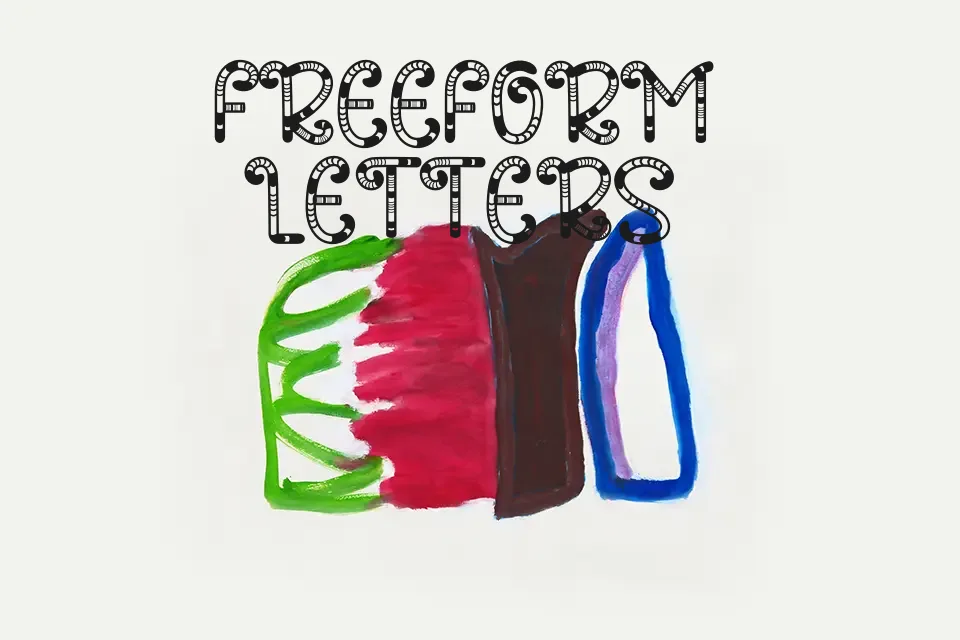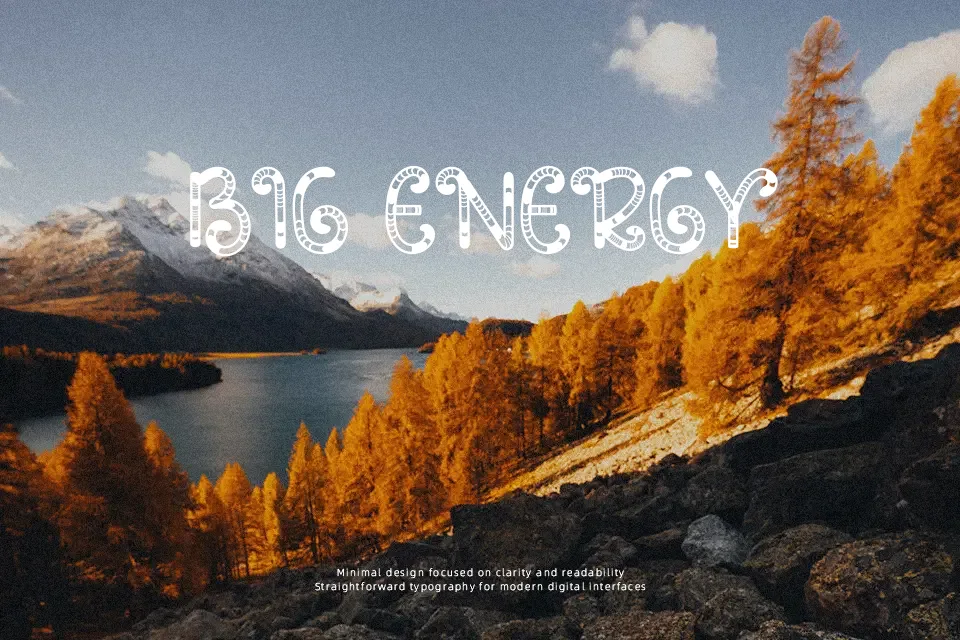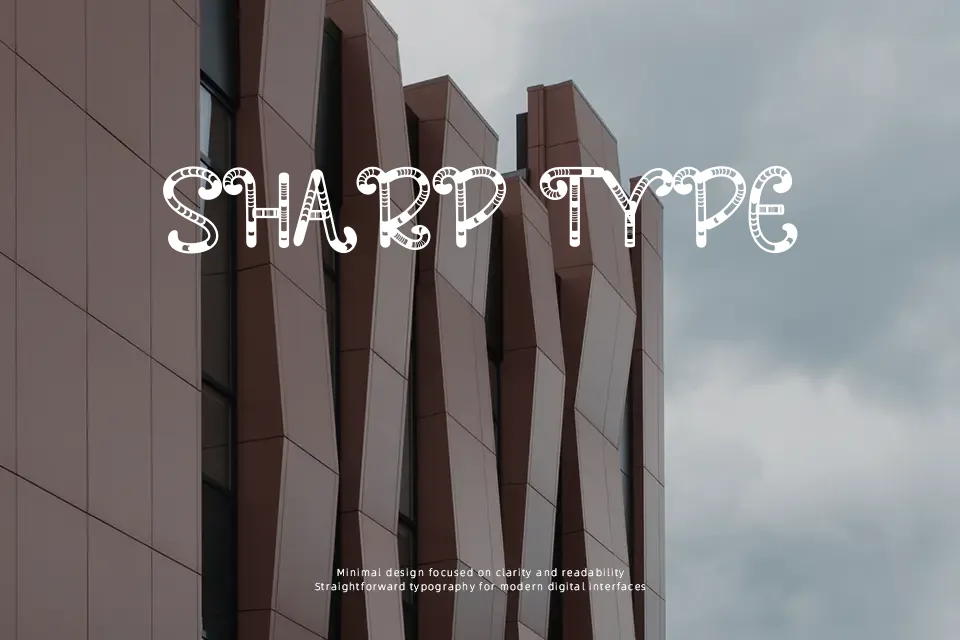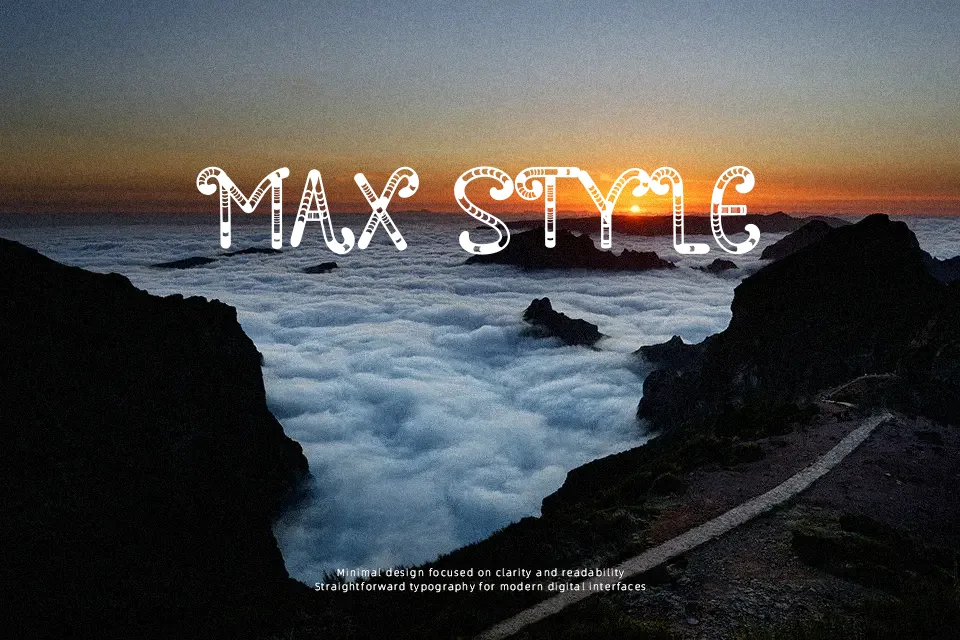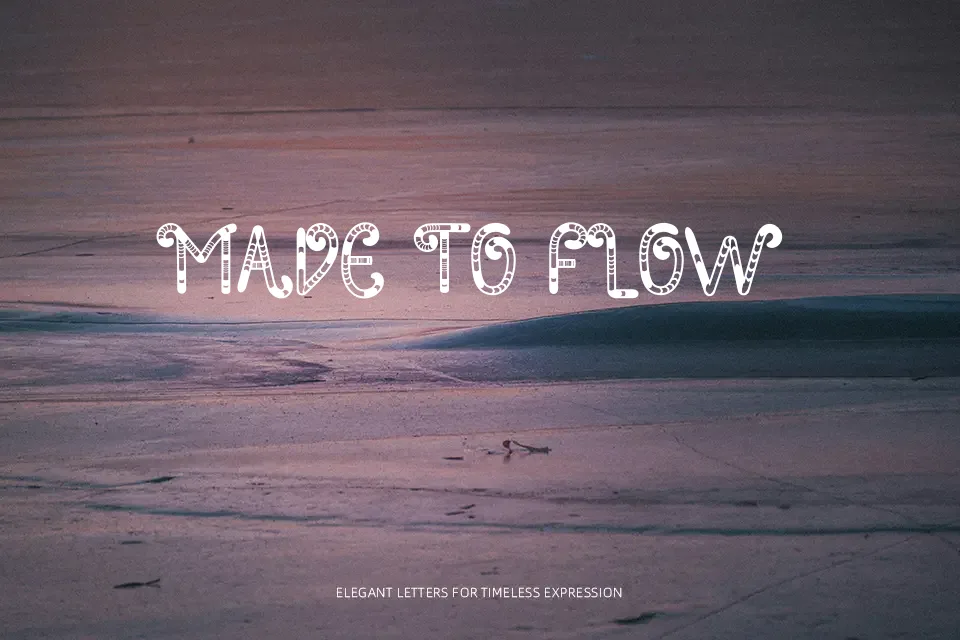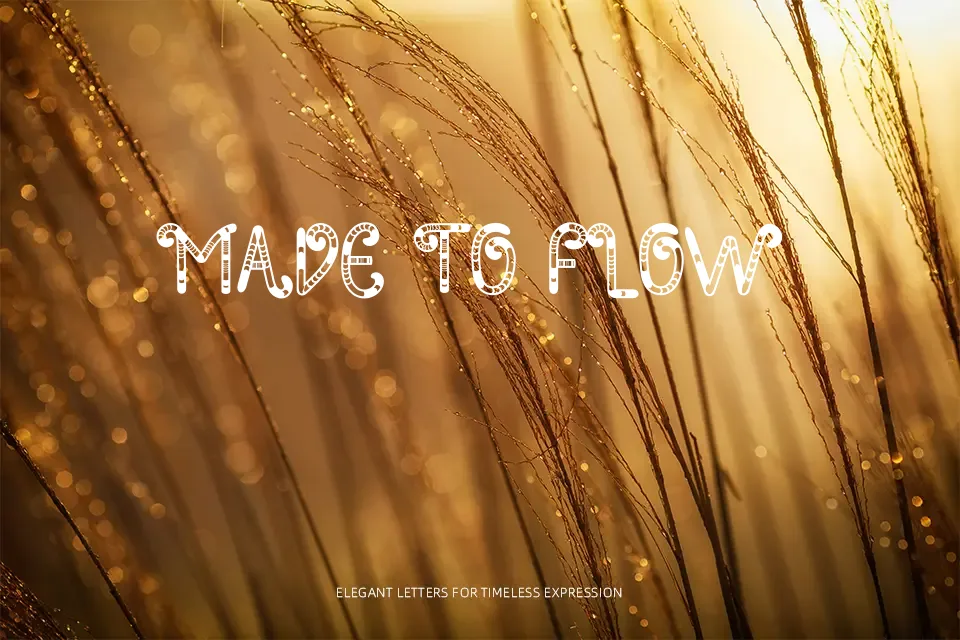
Candy Birthday Font
Designed by Inermedia Studio
Candy Birthday is a bouncy display script with soft, rounded shapes and chunky strokes that resemble piped icing or candy lettering. The letters sit with loose spacing and irregular baselines, which gives headlines an informal, hand-drawn rhythm rather than a polished corporate finish. It works well on kids’ birthday invitations, party backdrops, bakery packaging, and playful quote posts, especially when combined with bright colors and simple supporting type. However, the decorative forms quickly become tiring in dense paragraphs or serious editorial work, so it suits short, bold messages far more than long reading text.
kids birthday invitations
party posters and banners
bakery or sweets packaging
playful social media graphics
formal corporate branding
serious editorial layouts
small-size UI labels or captions
Perfect for holiday, kids, and packaging, with a creative and decorative style.